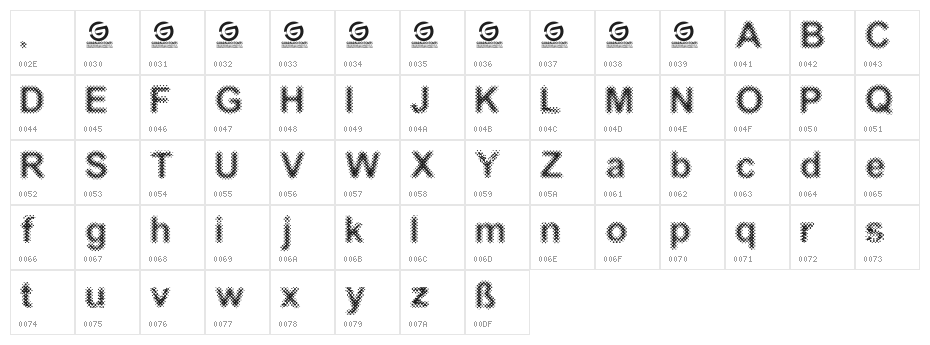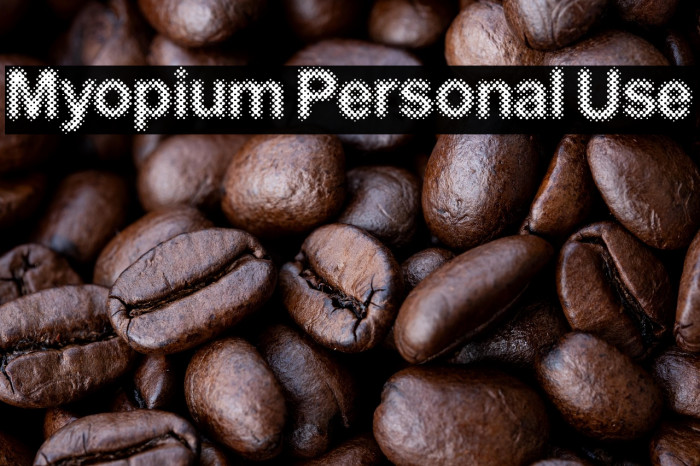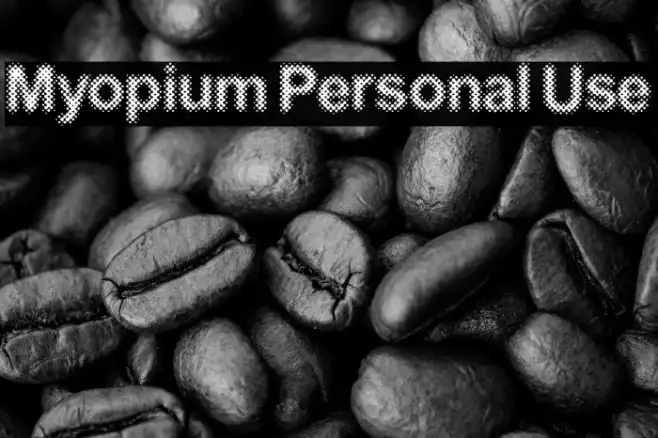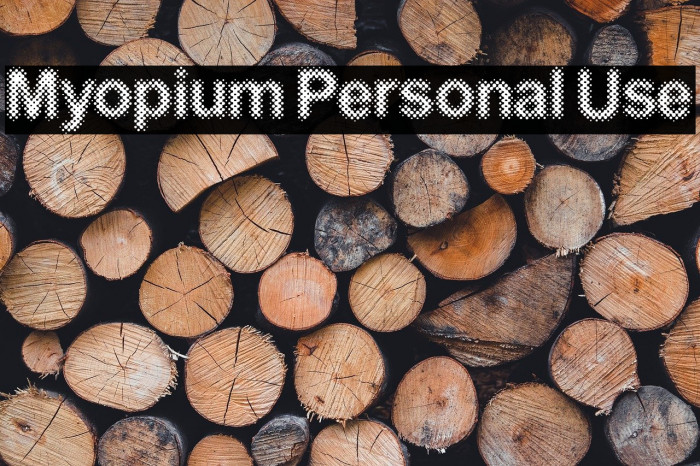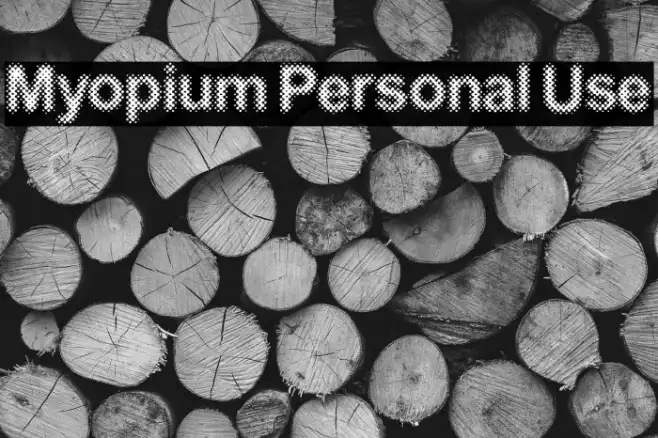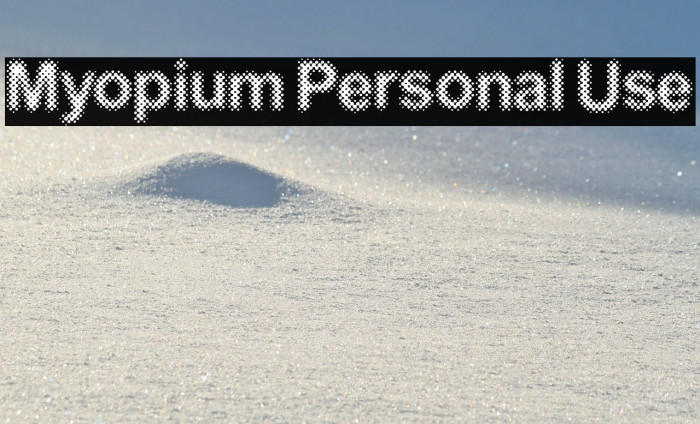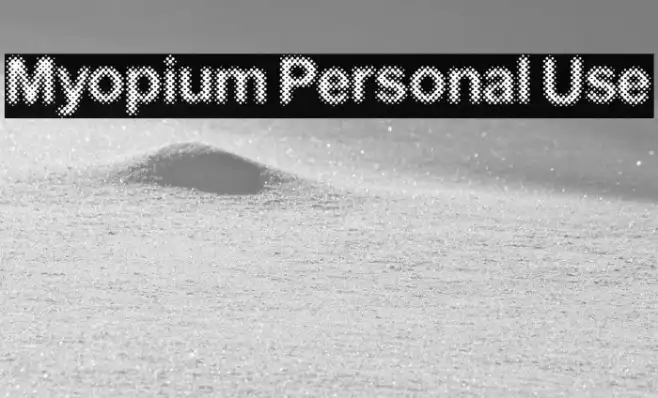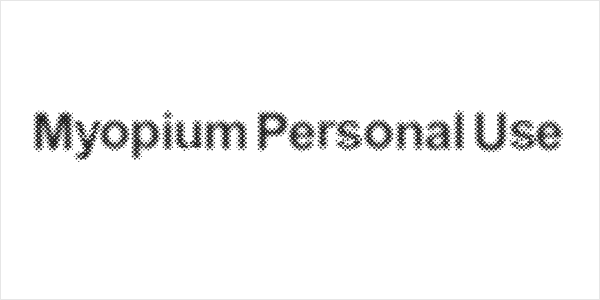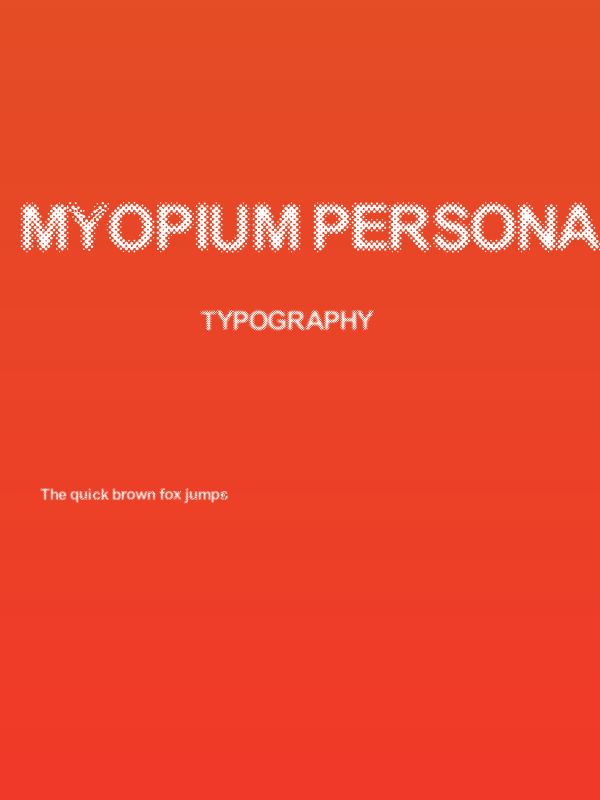
Myopium Personal Use Font
Myopium Personal Use Description
This font features a unique dotted pattern that forms each character, creating a visually striking and modern appearance. The letters are composed of evenly spaced dots, giving the font a textured and dynamic look. The uppercase and lowercase letters maintain a consistent style, with rounded edges and a playful yet sophisticated feel. This font is ideal for creative projects that require a bold statement, as it stands out with its distinctive design. The spacing between characters is normal, allowing for readability while maintaining its decorative appeal.
| Proposed Projects | Ideal for posters, branding, and creative digital designs that require a bold, eye-catching font. |